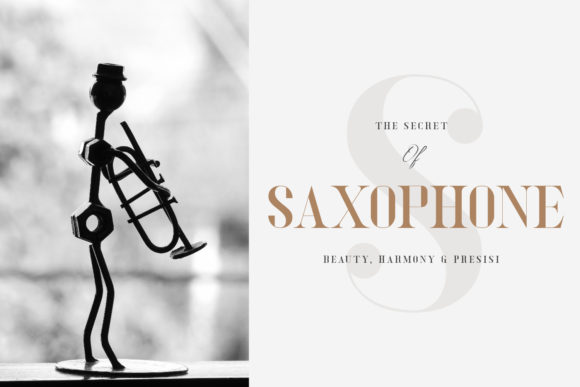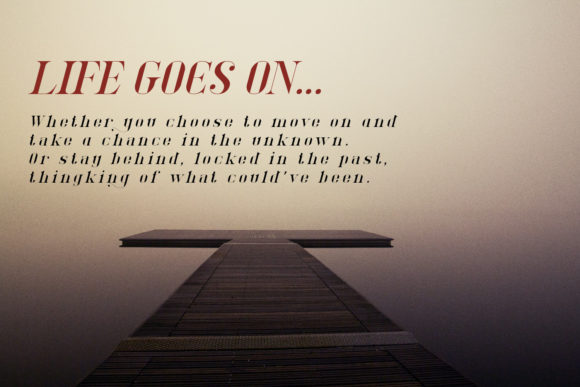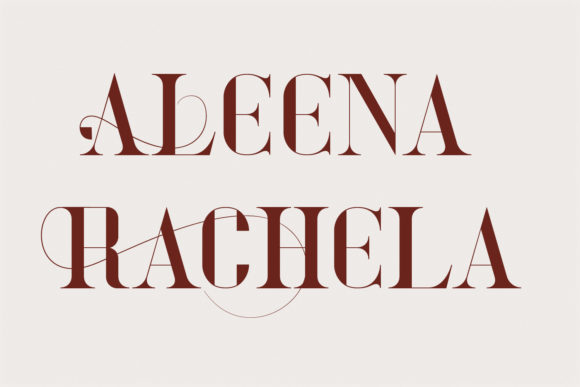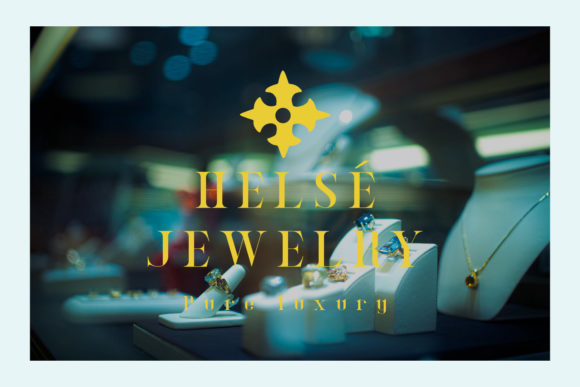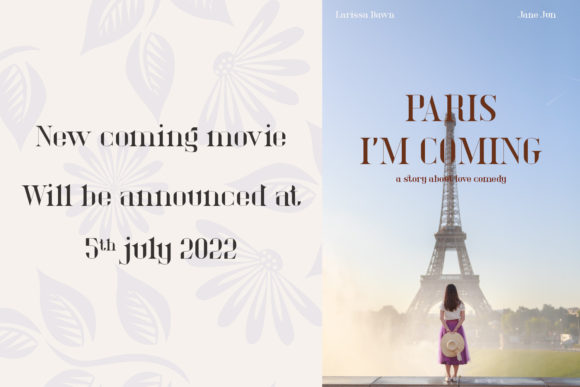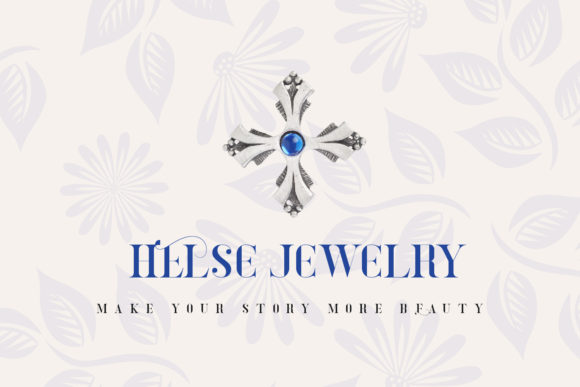
Introducing Delucy Font: Elevate Your Designs with Luxury and Sophistication
In the world of typography, a good font can make all the difference in creating stunning designs that capture the essence of your brand or project. If you’re a designer, craftsperson, or simply someone who appreciates beautiful typography, you’re in for a treat. Meet Delucy Font, a luxurious and unique serif font that’s about to take your designs to the next level.
What Makes Delucy Font Special?
Delucy Font is not just another serif font; it’s a masterpiece crafted with precision and attention to detail. Its unique design elements and versatility make it an excellent choice for a wide range of projects, from elegant branding and advertising to beautiful crafting and DIY projects. Whether you’re creating invitations, packaging, or digital content, Delucy Font is sure to impress.
One of the standout features of Delucy Font is its PUA (Private Use Area) encoding. This means that you can easily access all the glyphs and swashes without any hassle. PUA encoding allows font users to access a wide range of characters and symbols that aren’t part of the standard Unicode character set. With Delucy Font, you can unlock a world of creative possibilities and add a touch of elegance to your designs.
The Versatility of Delucy Font
Delucy’s versatile style is one of its most compelling features. This font can effortlessly adapt to various design contexts, making it a valuable asset for any designer or craftsperson. Here are just a few examples of how you can use Delucy Font:
- Branding and Logo Design: Create a lasting impression with Delucy’s luxurious and sophisticated style. Use it to craft elegant logos, business cards, and letterheads that exude professionalism.
- Wedding and Event Invitations: Make your invitations truly special with Delucy Font. Its beautiful swashes and glyphs will add a touch of romance and whimsy to your wedding or event invitations.
- Packaging Design: Elevate your product packaging with Delucy’s unique style. Use it to create eye-catching labels, tags, and packaging materials that stand out on store shelves.
- Digital Content: Add a touch of luxury to your digital content, including social media graphics, blog posts, and website headers. Delucy Font is perfect for creating visually appealing content that engages your audience.
Why Choose Delucy Font?
- Unique Design: Delucy Font boasts a distinctive design that’s sure to set you apart from the crowd.
- Ease of Use: With PUA encoding, you can easily access all the glyphs and swashes, making it simple to create stunning designs.
- Versatility: Delucy Font is incredibly versatile, making it suitable for a wide range of projects and design contexts.
- Luxurious Style: Delucy Font exudes luxury and sophistication, making it perfect for high-end branding, advertising, and design projects.